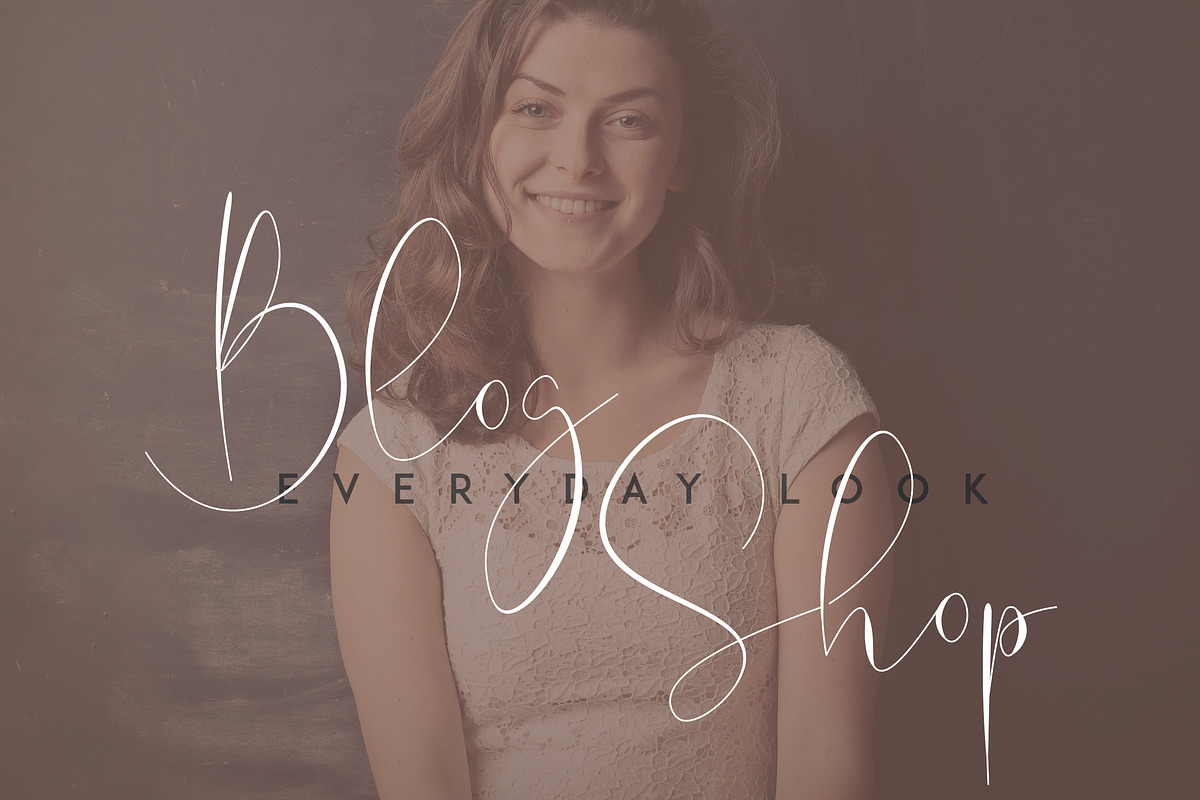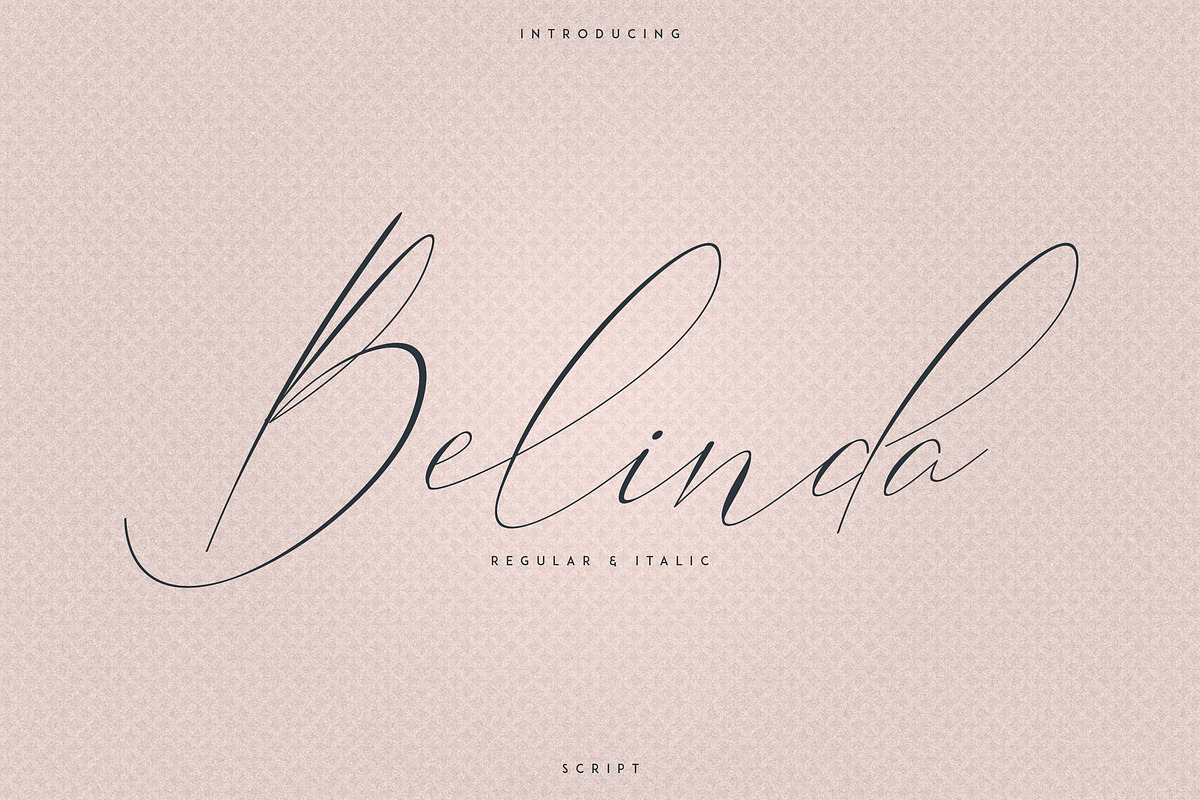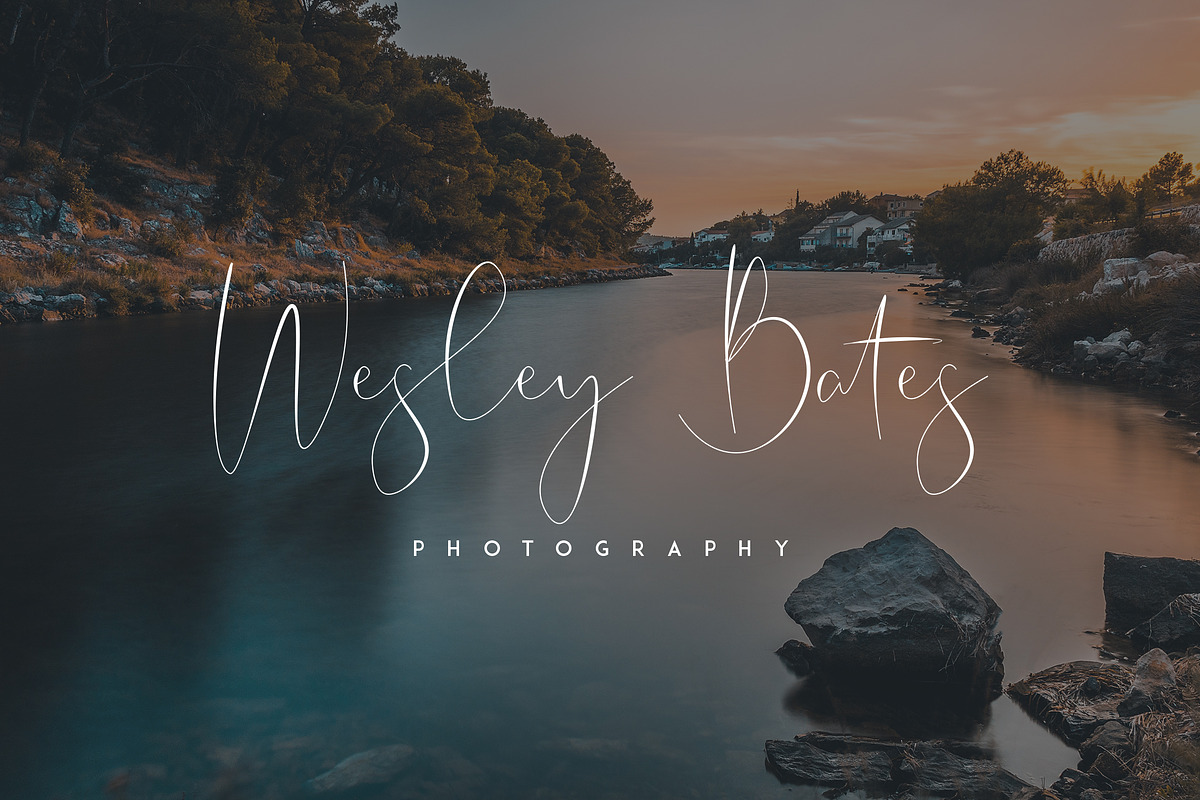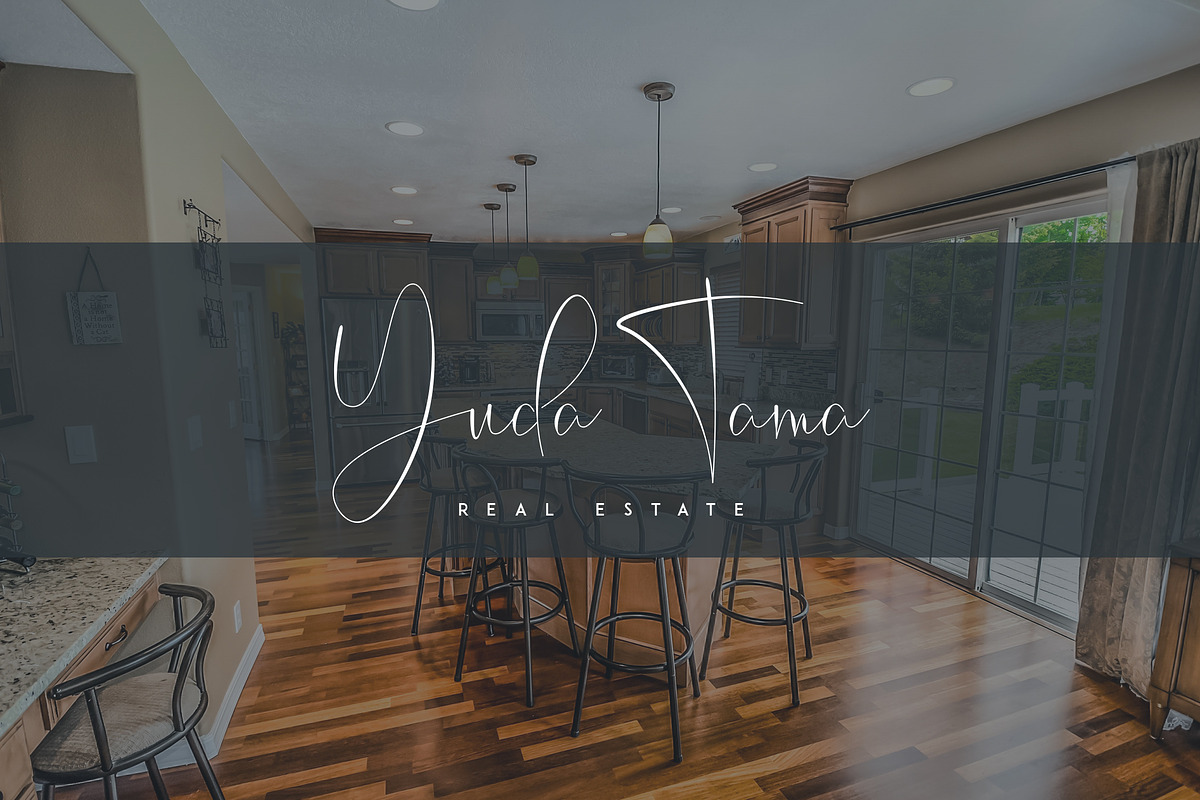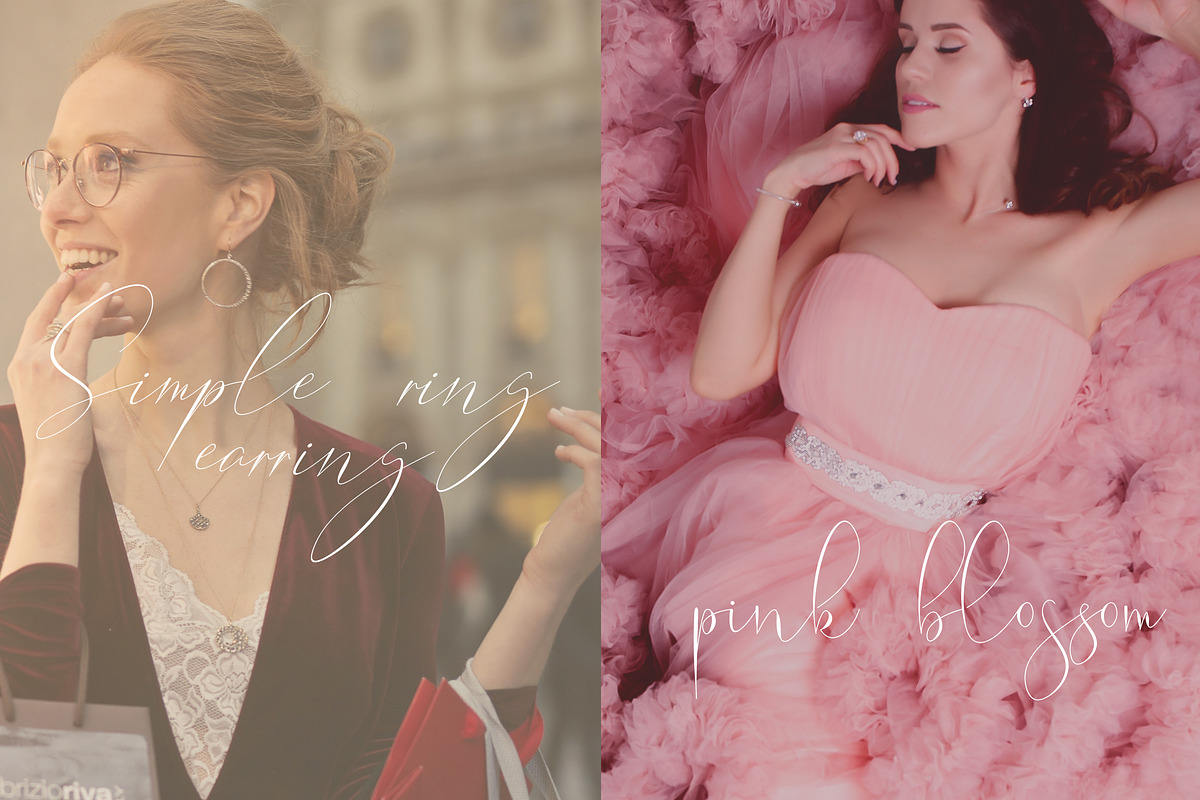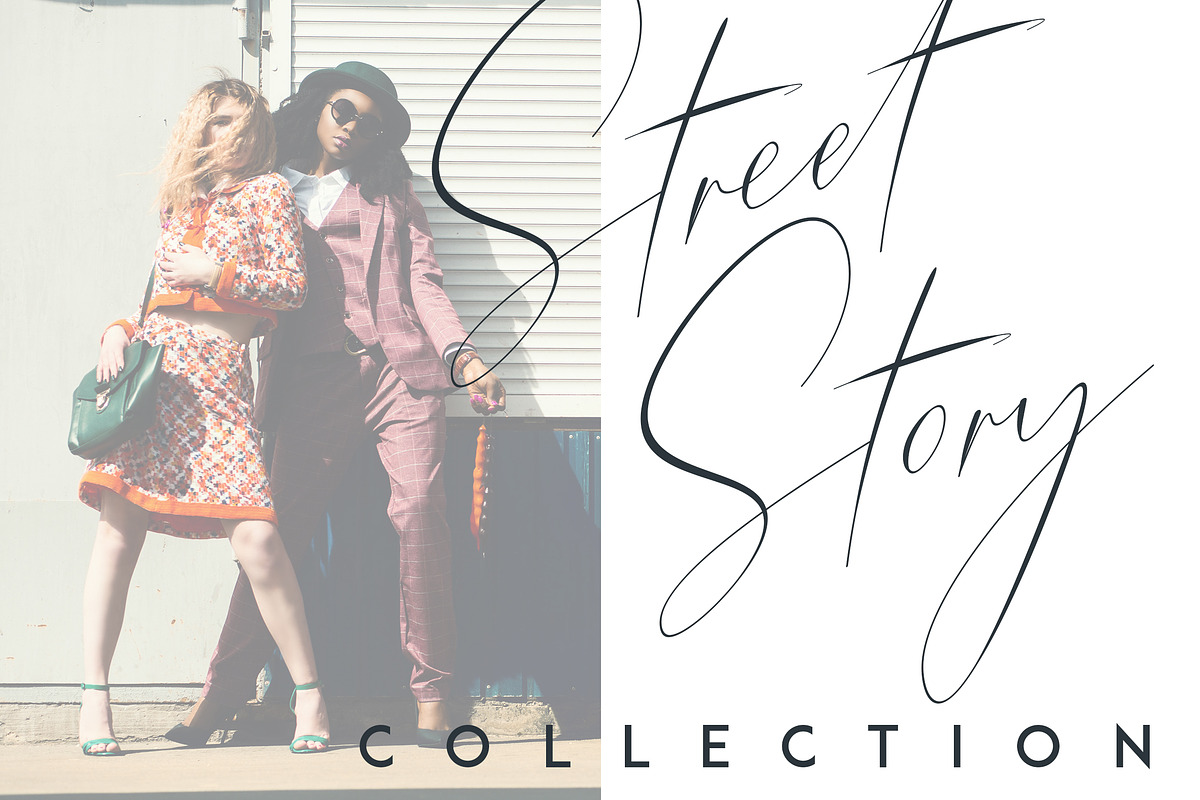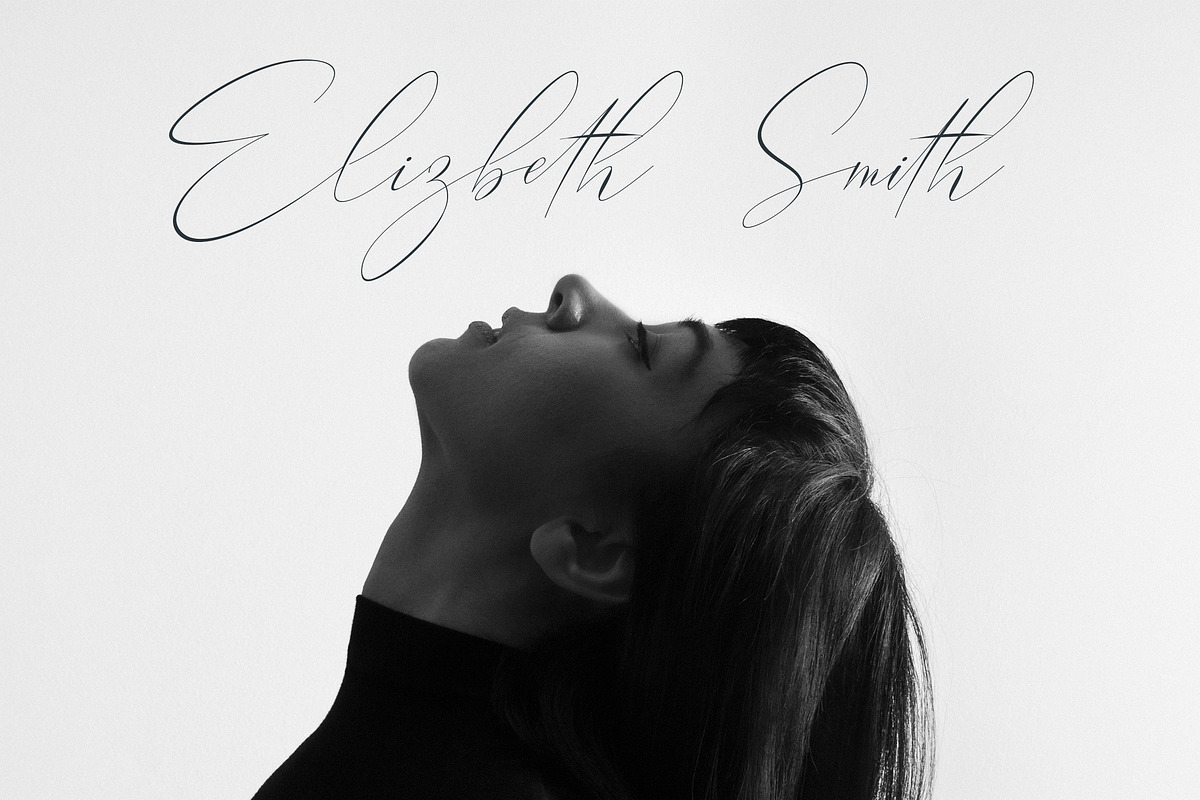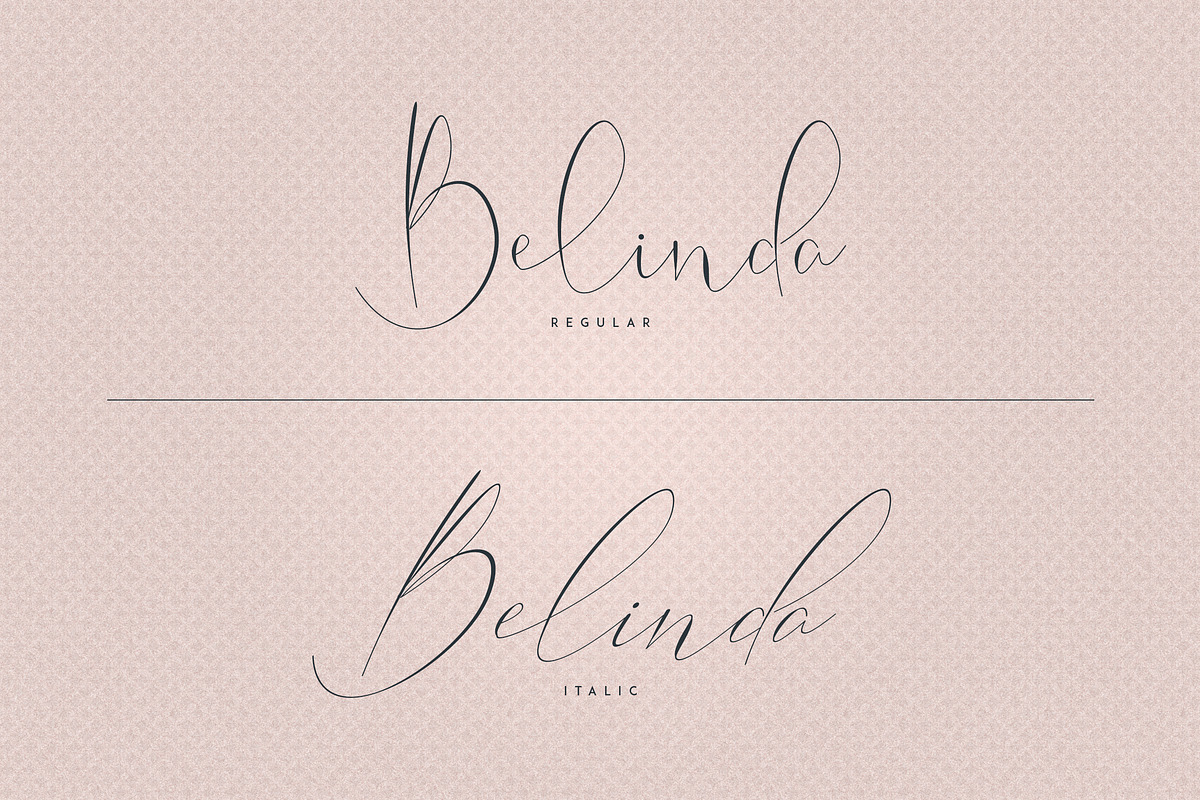
Belinda Script - Regular and Italic
Introducing Belinda Script
Belinda is elegant, clean font with regular, italic styles and multilingual support. It's a very versatile font that works great in large and small sizes.
Belinda is perfect for branding projects, home-ware designs, product packaging, magazine headers - or simply as a stylish text overlay to any background image.
ll, il, it, ul, al, at, ch, ck, cl, ct, nt, re, rr, ee, el, et, sh, sl, ss, th, ff, st